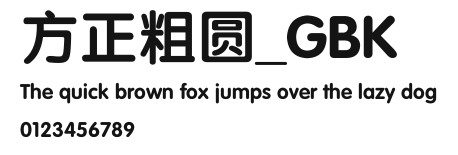
• Font Name: 方正粗圆_GBK
方正粗圆_GBK.ttf is a modern, elegant sans-serif font designed for ultimate readability and visual harmony. Perfect for branding, headlines, web design, and print materials.